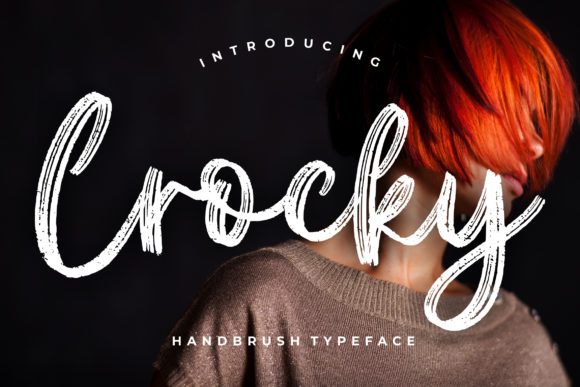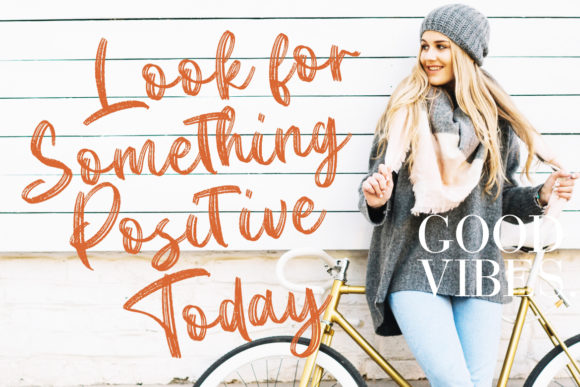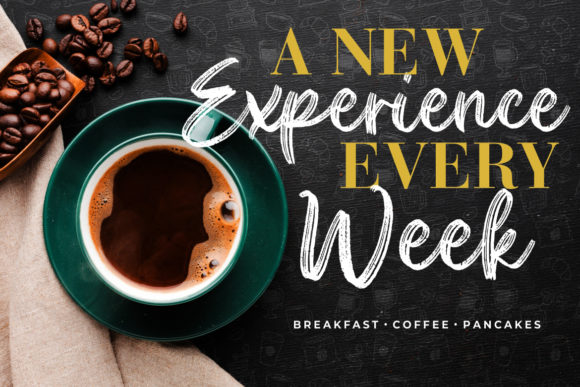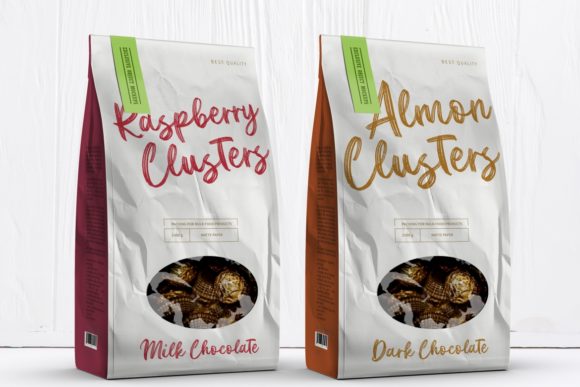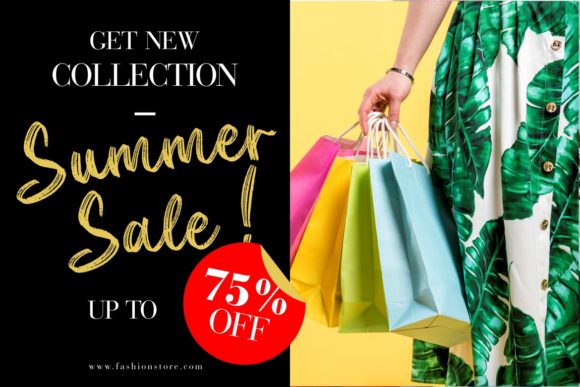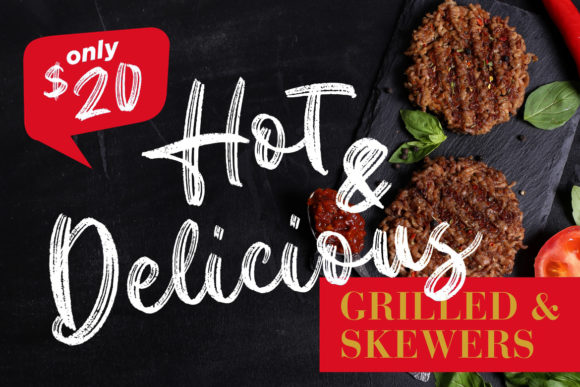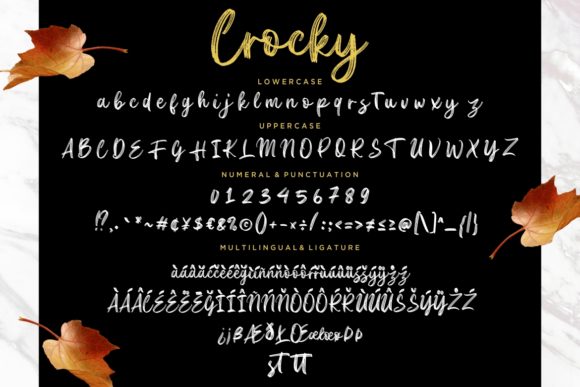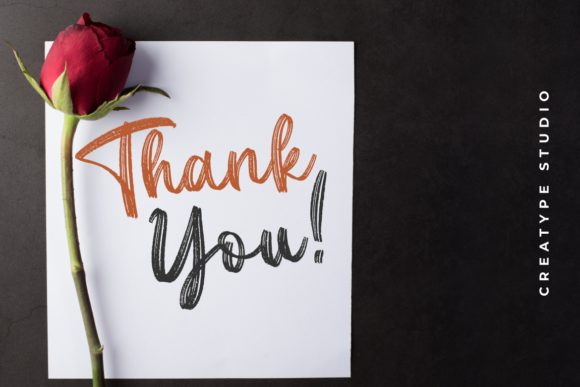
Crocky Font
About Crocky Font
Crocky is a sweet and flowing handwritten font, designed with the help of an outstanding brush pen. Get creative with its unique yet versatile style and use it to create gorgeous wedding invitations, beautiful stationary art, eye-catching social media posts, and much more!